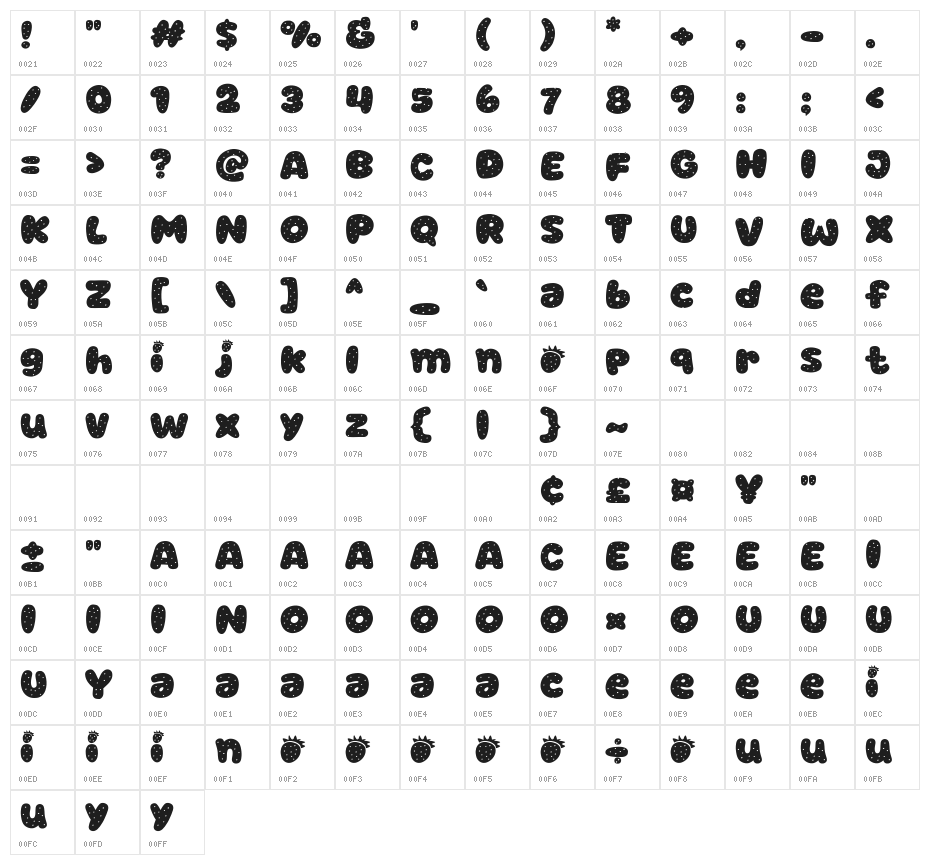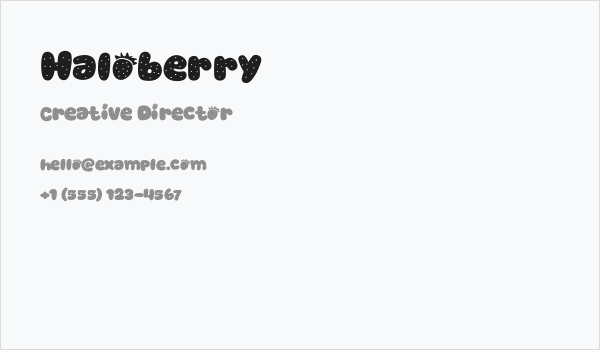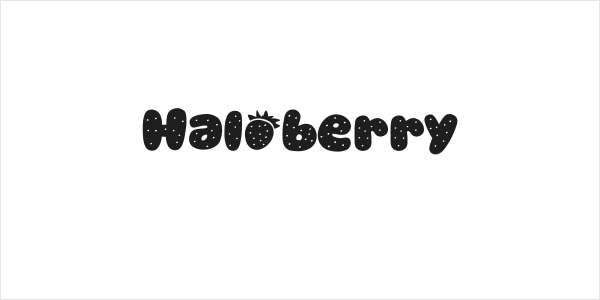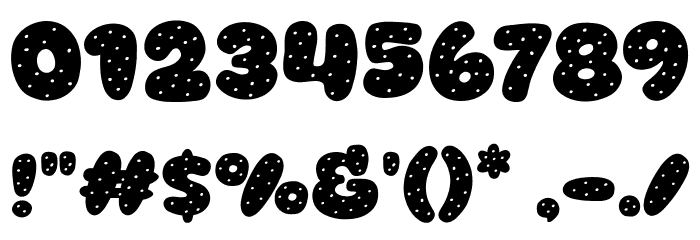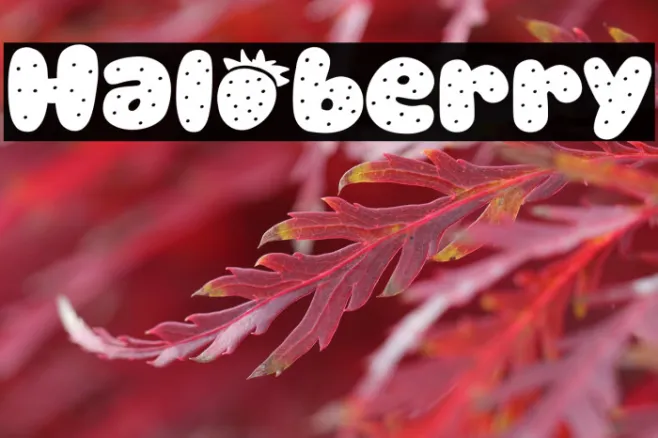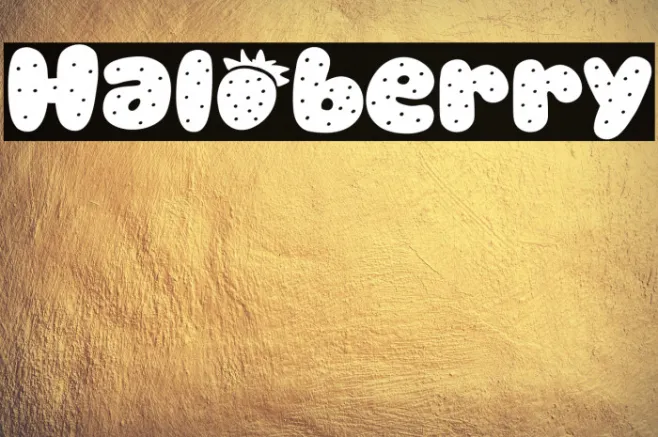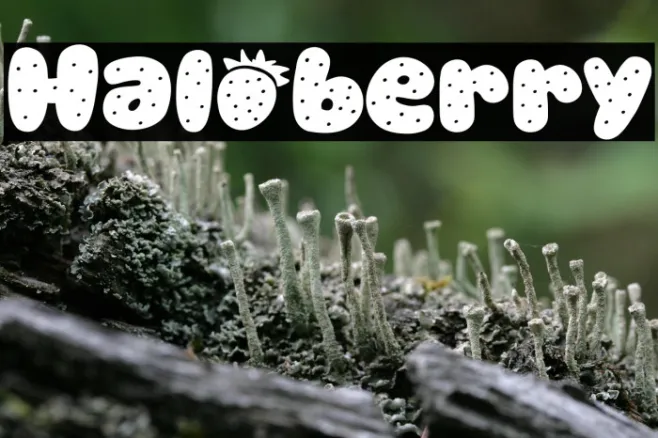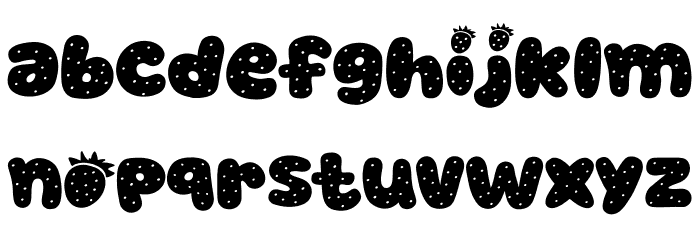
Haloberry Font
| Gesamtstil | Playful, Whimsical |
| Anwendungsfall | Logos, Posters, Children's materials |
| Vorgeschlagene Projekte | Ideal for children's books, playful branding, party invitations, and creative posters. |